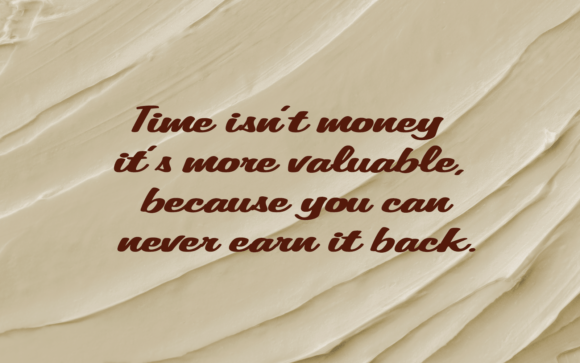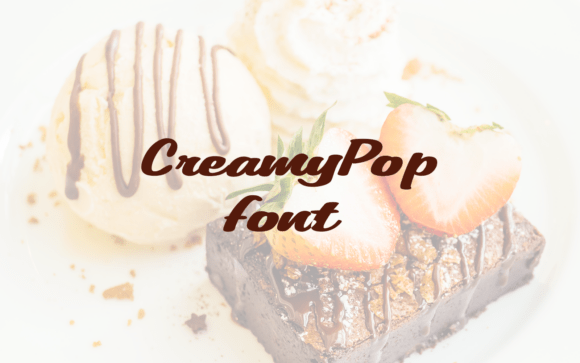
Introducing CreamyPop: The Font that Adds a Dash of Fun to Your Brand
In the world of typography, fonts can make or break a brand’s identity. A well-crafted font can instantly convey a brand’s personality, tone, and style, setting it apart from the competition. For brands looking to add a touch of fun, modernity, and casual flair to their messaging, look no further than CreamyPop – the font that blends fun and flavor in every letter.
The Birth of CreamyPop
CreamyPop is more than just a font – it’s an experience. Born from the idea of combining bold curves with a fresh vibe, CreamyPop is the perfect blend of modernity and playfulness. Its unique design makes it an instant attention-grabber, perfect for brands that want to stand out in a crowded market. Whether you’re a burger joint, streetwear label, or any business looking to add some personality to your messaging, CreamyPop is the perfect fit.
What Makes CreamyPop Special?
So, what sets CreamyPop apart from other fonts? Here are just a few features that make it a game-changer:
• Bold Curves: CreamyPop’s bold curves give it a fun and playful feel that’s impossible to ignore. Perfect for headlines, titles, and short phrases, this font is designed to make a statement.
• Fresh Vibe: With its modern and casual design, CreamyPop is perfect for brands that want to feel current and on-trend.
• Instant Personality: CreamyPop adds a dash of personality to any message, making it perfect for brands that want to stand out from the crowd.
Who is CreamyPop For?
CreamyPop is perfect for a wide range of businesses and brands, including:
• Burger Joints: Add a fun and playful touch to your menu, signage, or marketing materials with CreamyPop.
• Streetwear Labels: Give your brand a modern and edgy feel with CreamyPop’s bold curves and fresh vibe.
• Cafes and Restaurants: Use CreamyPop to add a touch of personality to your menu, website, or social media channels.
• Designers and Crafters: Use CreamyPop to add a unique and creative touch to your designs, crafts, or DIY projects.
How to Use CreamyPop
Using CreamyPop is easy! Here are a few tips to get you started:
• Headlines and Titles: Use CreamyPop for headlines, titles, and short phrases to add a touch of personality to your messaging.
• Branding and Identity: Use CreamyPop as a primary font for your brand identity, including logos, signage, and marketing materials.
• Digital and Print: Use CreamyPop in both digital and print applications, including websites, social media channels, menus, and flyers.
Why Choose CreamyPop?
With so many fonts to choose from, why choose CreamyPop? Here are just a few reasons:
• Unique Design: CreamyPop’s unique design sets it apart from other fonts, making it a great choice for brands that want to stand out.
• Versatility: CreamyPop is versatile and can be used in a wide range of applications, from digital to print.
• Easy to Read: Despite its bold curves, CreamyPop is easy to read, making it perfect for use in a variety of contexts.
In conclusion, CreamyPop is the perfect font for brands that want to add a touch of fun, modernity, and personality to their messaging. With its bold curves, fresh vibe, and instant personality, CreamyPop is sure to make your message sweet, stylish, and impossible to miss. Whether you’re a designer, crafter, or business owner, CreamyPop is a great choice for anyone looking to add a unique and creative touch to their brand.